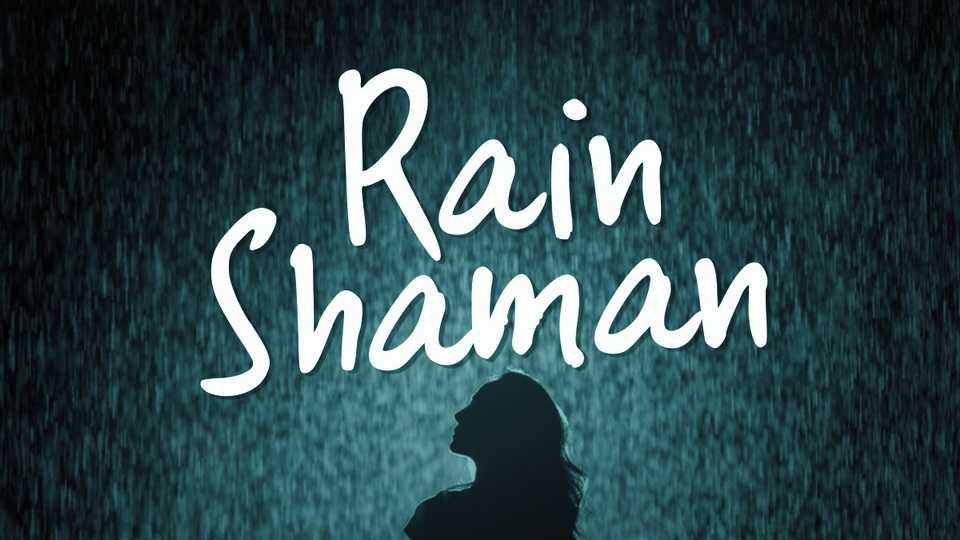
Download Rain Shaman font, a simple and informal hand lettered typeface. Rain Shaman font is perfect for life quotes, handwritten notes, greeting cards, and any project with a personal touch.
Designer: Joe Letter